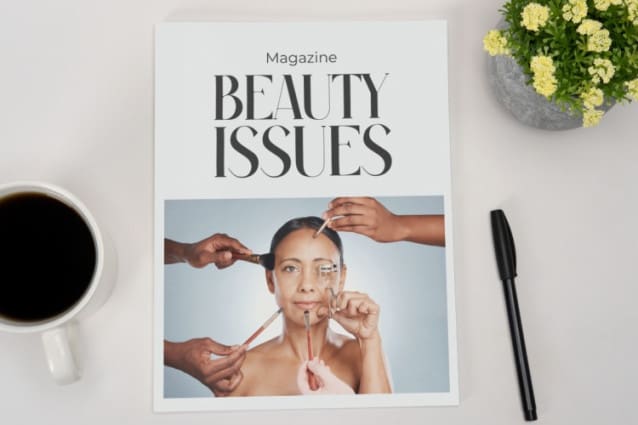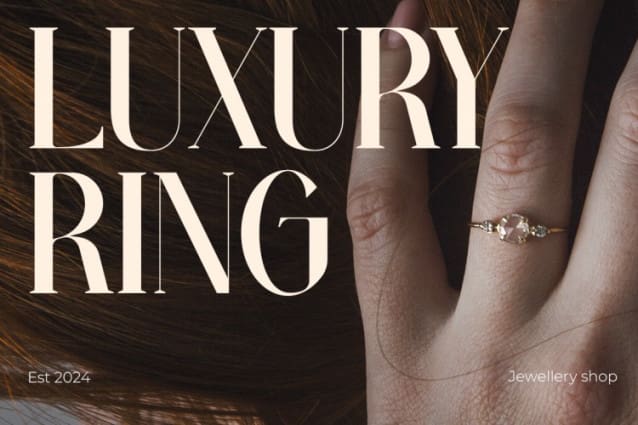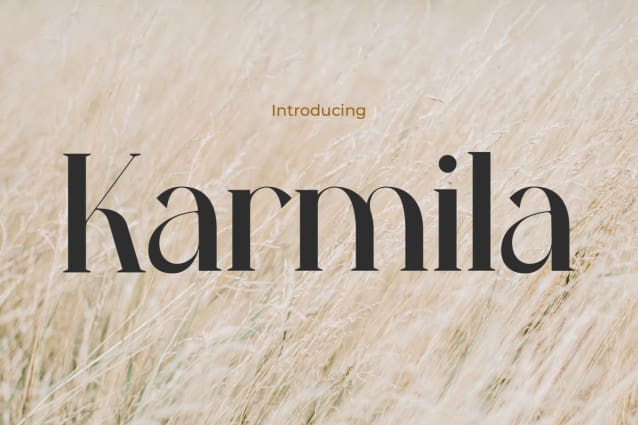
Karmila Font
Karmila Font, where elegance, sophistication, and femininity unite to craft a captivating typographic masterpiece tailor-made for distinguished brand identities. With its graceful contours and chic letterforms, KarmilaFont exudes an enduring allure perfectly suited for luxury branding ventures. Whether it’s haute couture labels, opulent cosmetics, or upscale lifestyle publications, this font injects a sense of refinement and charm, ensuring brands captivate audiences with poise and distinction.
Karmila Font is meticulously curated to evoke confidence and allure, making it an impeccable choice for brands seeking to embody refined femininity. Its sleek, fashion-forward design infuses a hint of glamour into every branding endeavor, elevating visual identities with sophistication and flair. Whether adorning product packaging, promotional collateral, or digital platforms, Karmila Font epitomizes elegance, imbuing each brand communication with an essence of timeless beauty and contemporary allure.